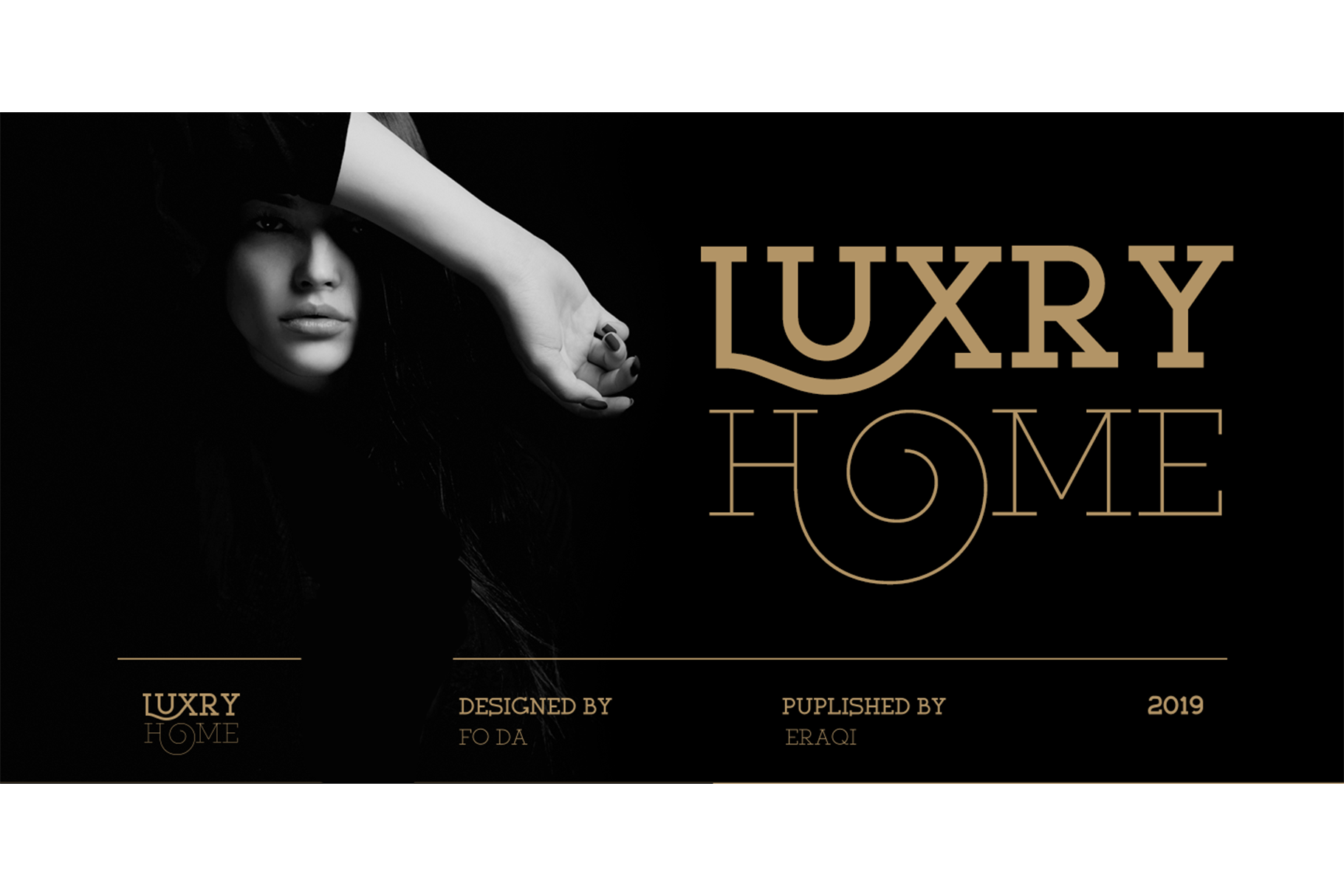
Luxury Home Font
Luxury Home is a slab serif typeface of 9 weights from Extra Light to Extra Black and can be used as both a headline and text face. "Luxury Home" is recommended for using in long-form writing and articles, since a serif is far more readable for longer passages of text. The typeface has a carefully crafted weight range, with ligatures .